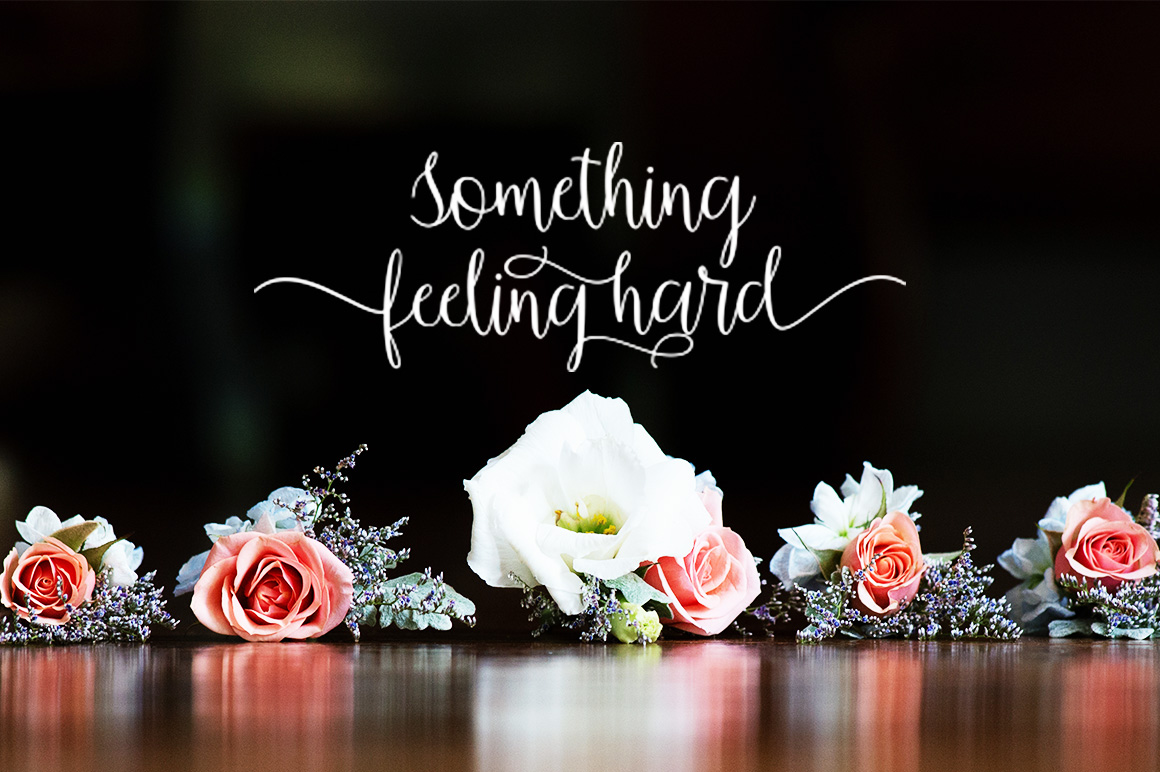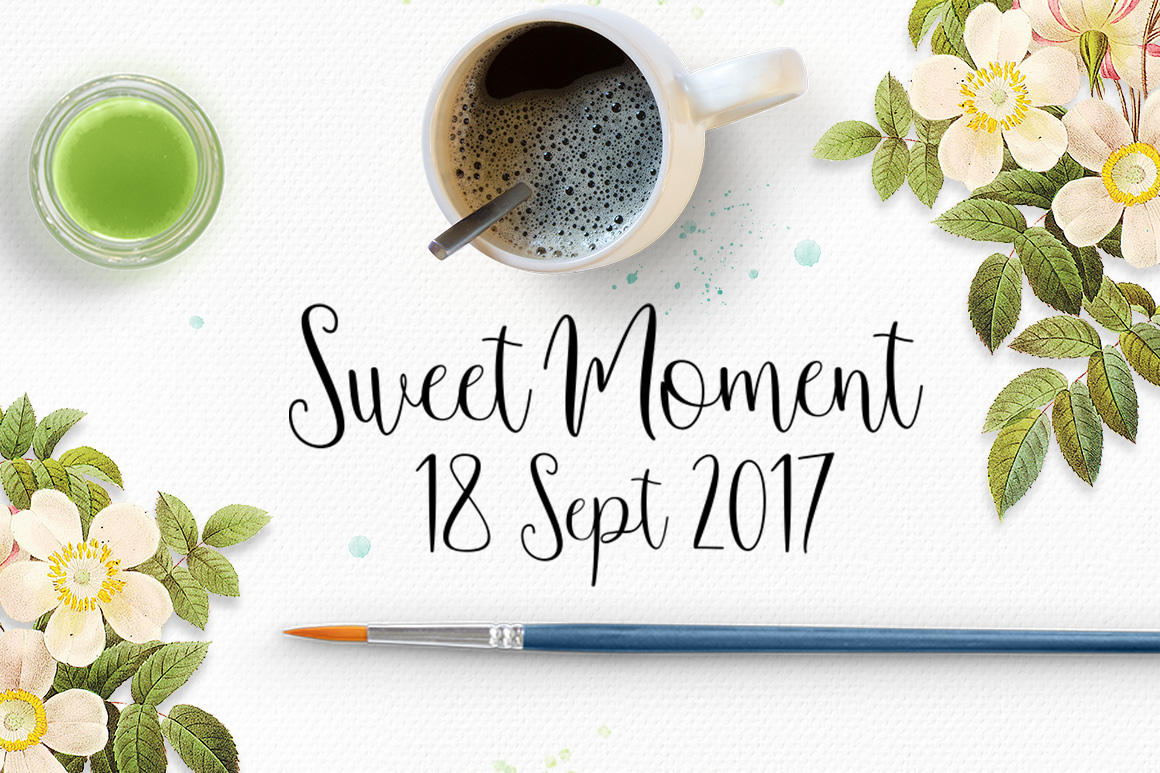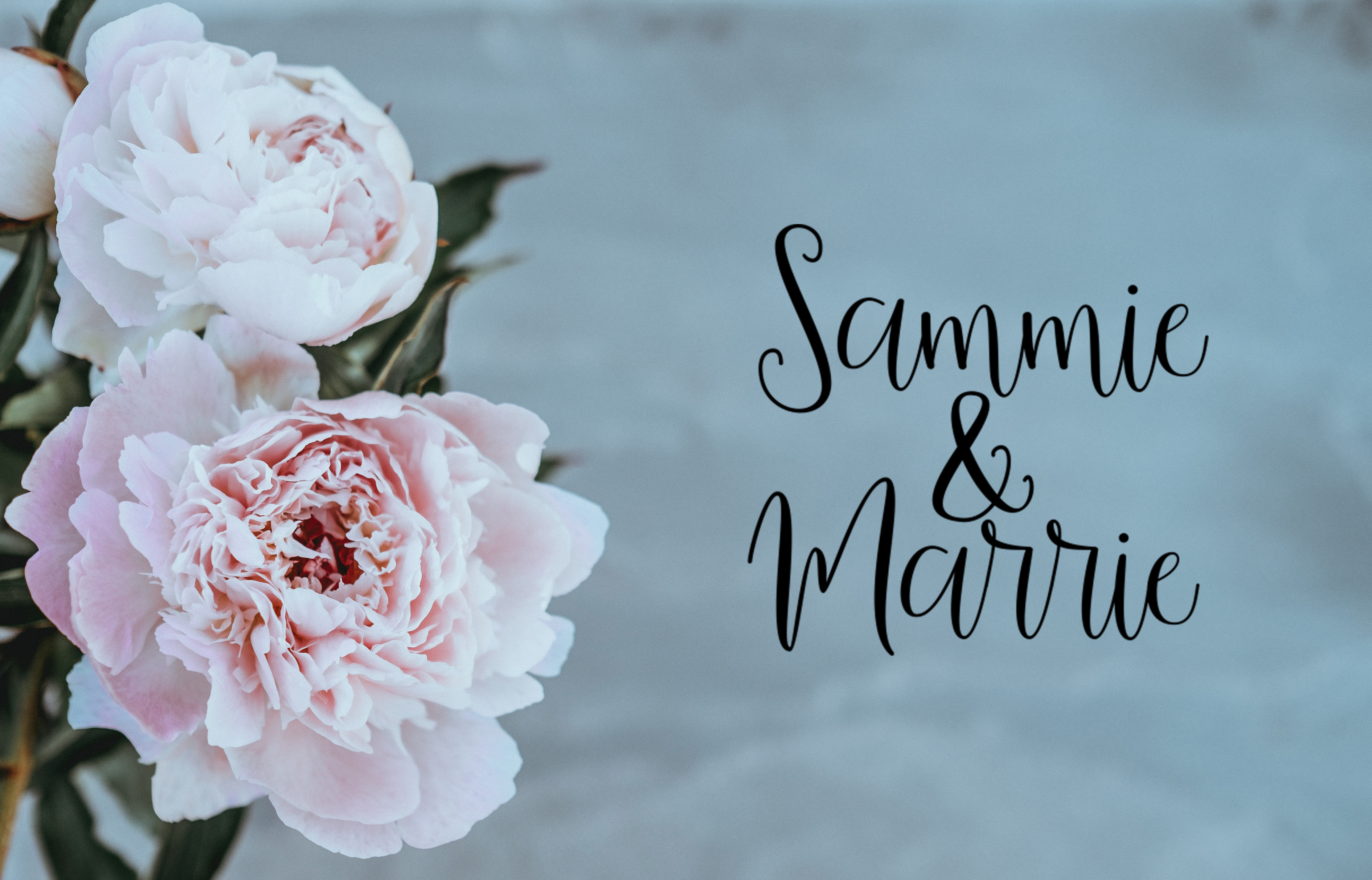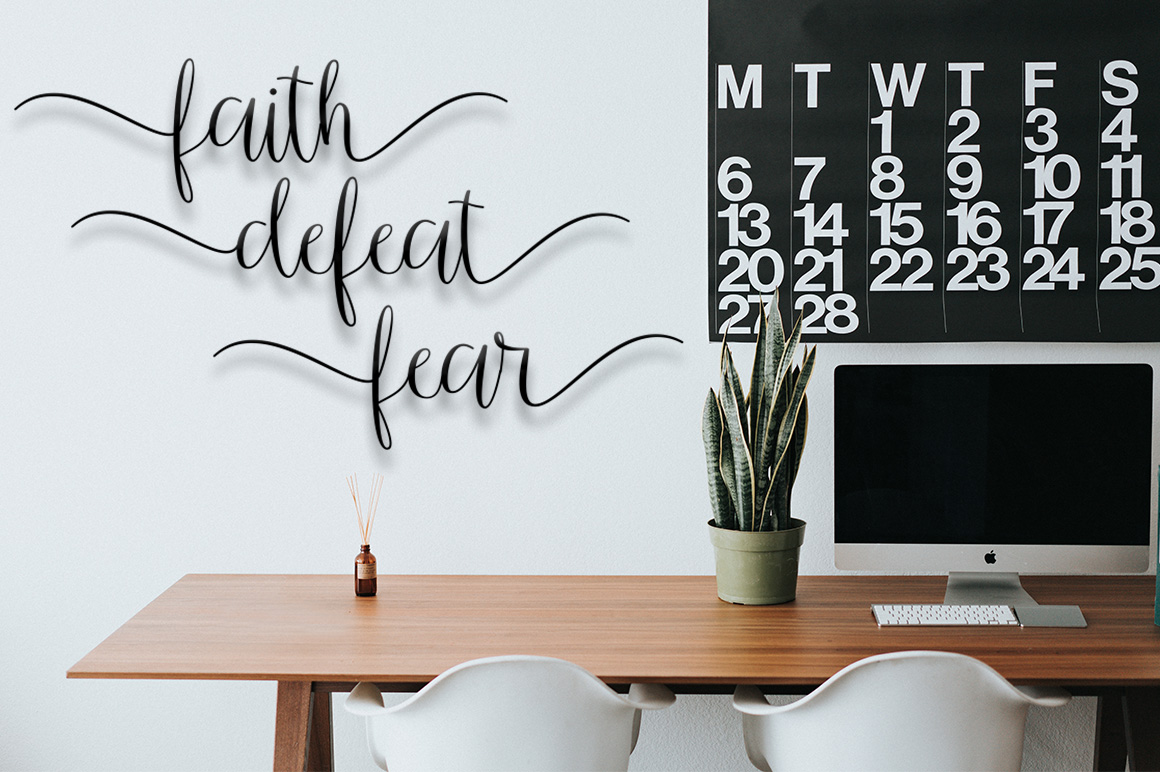
Introduction to Samantha ‘s Script Font
Enter Samantha ‘s Script Font, a high-quality, classically decorative font that brings a modern twist to traditional script fonts. With its beautiful, flowing lines and attention-grabbing design, this font is perfect for creating stunning headlines and eye-catching designs that will elevate any project to the next level.
Key Features of Samantha ‘s Script Font
- High-quality, handwritten font design ideal for creative projects.
- Transparent background, making it easy to use on any design resource.
- Includes 100+ unique characters, including uppercase and lowercase letters, numbers, and punctuation marks.
- Designed to be versatile and suitable for a wide range of creative projects, from invitations to blog posts.
Honest Review: Samantha ‘s Script Font
I recently stumbled upon Samantha ‘s Script Font while searching for a high-quality design resource to enhance my creative project. The font’s unique, hand-written style caught my eye, and I was excited to dive in.
- ✨ The font’s high quality is evident, with crisp, clear lines and a natural feel.
- ✨ The transparent background makes it easy to overlay on any image or design without distractions.
- ✨ The font is perfect for adding a personal touch to creative projects, from invitations to social media graphics.
- ⚠️ Some users may find the font’s style too whimsical or difficult to read at small sizes.
Overall, I’m impressed with Samantha ‘s Script Font. It’s a valuable design resource that can add a unique touch to any creative project. With its high quality, transparent background, and free download, it’s a must-have for designers looking to elevate their work.
Tips for Getting the Most Out of Samantha ‘s Script Font
To get the most out of Samantha ‘s Script Font, use it on a transparent background to make it stand out. You can also pair it with other fonts to create a unique and creative look.
Samantha ‘s Script Font is perfect for a variety of design projects, including wedding invitations, baby shower invitations, and other creative projects that require a high-quality, elegant script font.